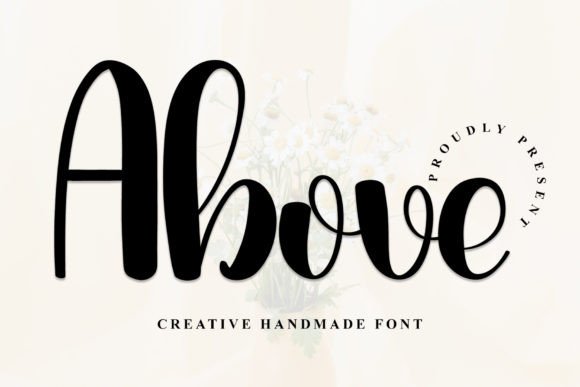
Introducing Above Font, the script font that will take your designs to new heights! Created by the talented team at PiPi Creative, this font family is perfect for those looking to add a touch of elegance to their projects.
With its beautiful handwritten style, Above Font is sure to capture your heart. Its unique and timeless design will elevate your work and set it apart from the rest. Use it to create stunning invitations, branding materials, and more.
One of the most impressive features of Above Font is its versatility. It can be used for a wide range of projects, from wedding invitations to social media graphics. The possibilities are truly endless!
But what really sets Above Font apart is its emotional impact. When your audience sees your designs, they will feel the love and care that went into every detail. This font will help you connect with your audience on a deeper level, and leave a lasting impression.